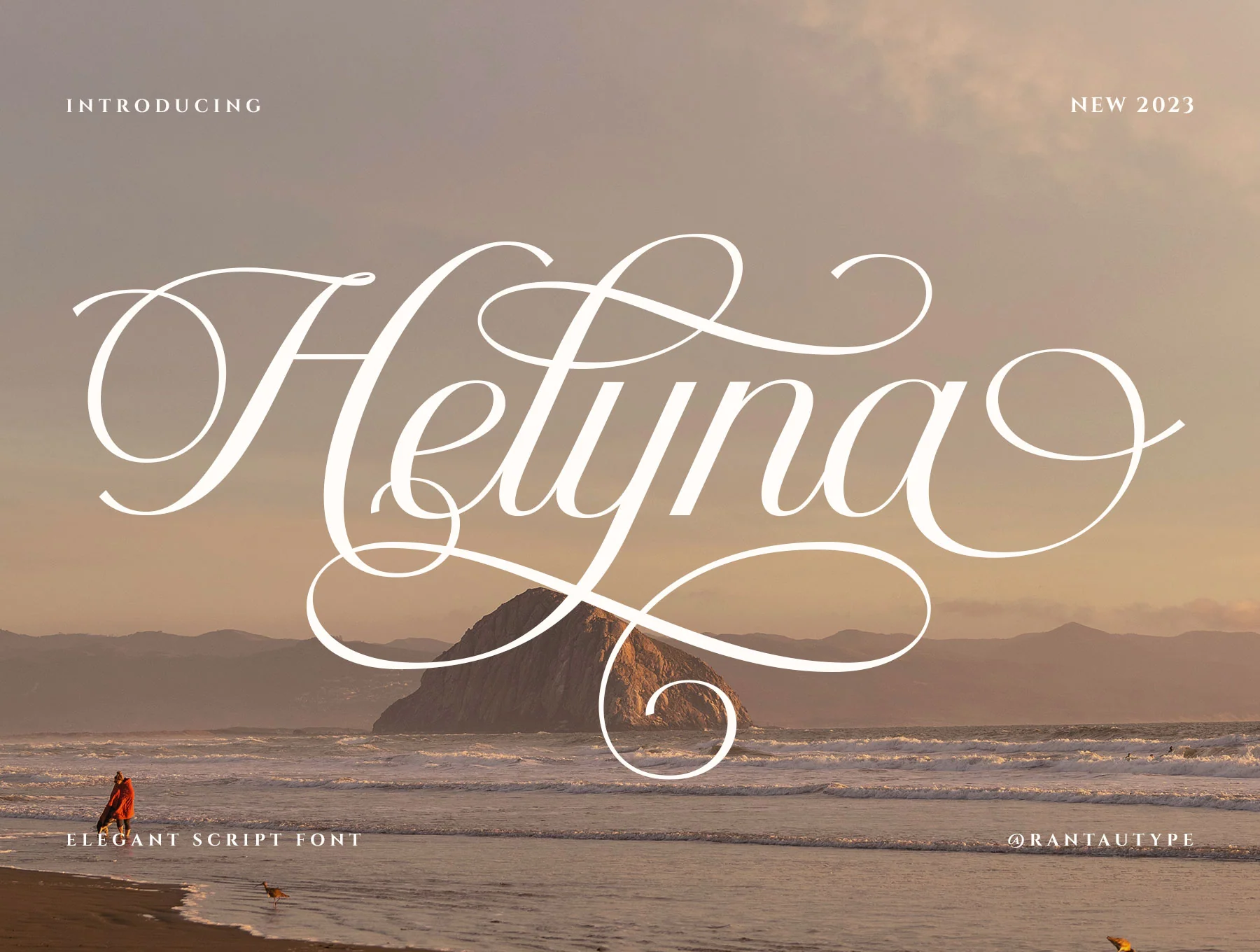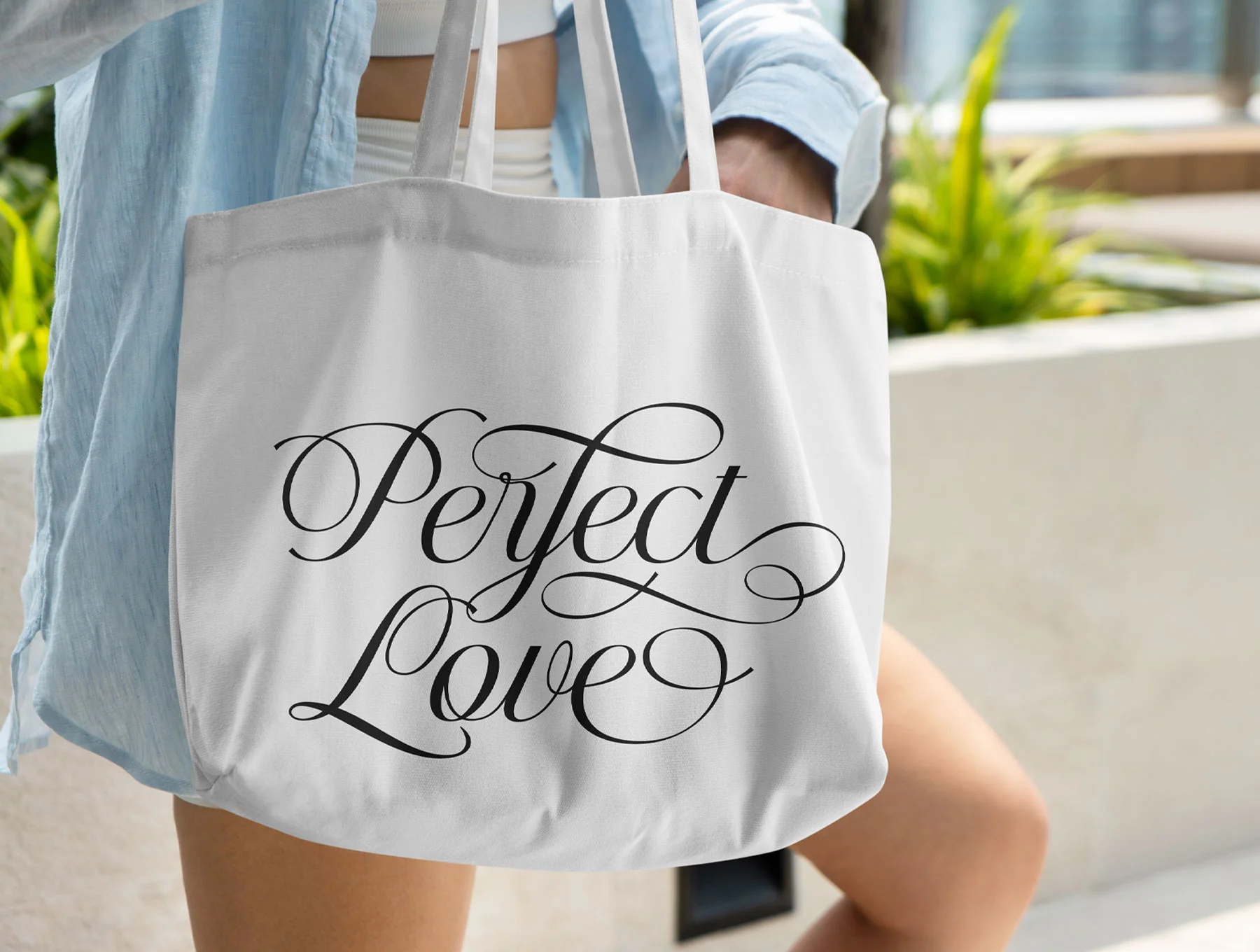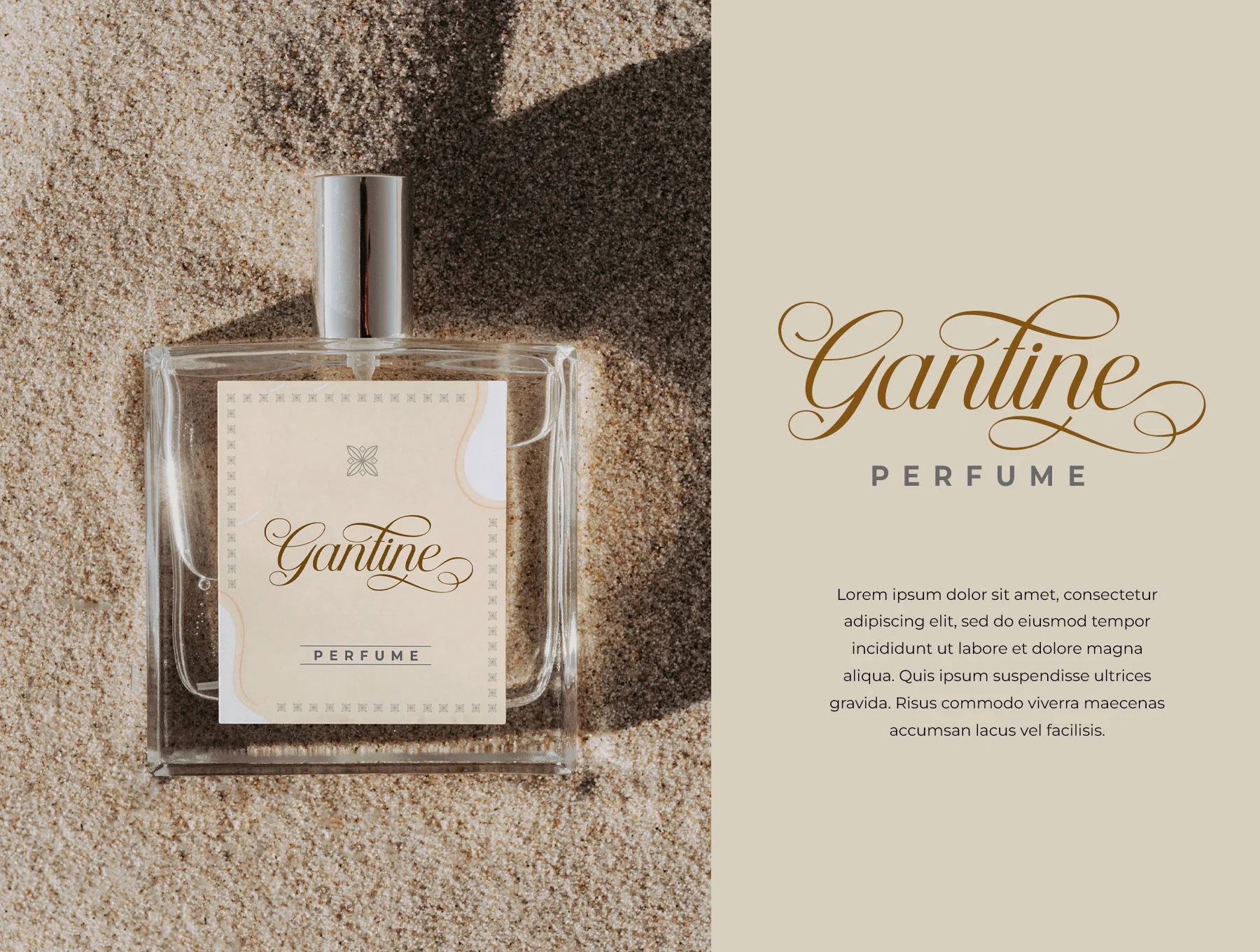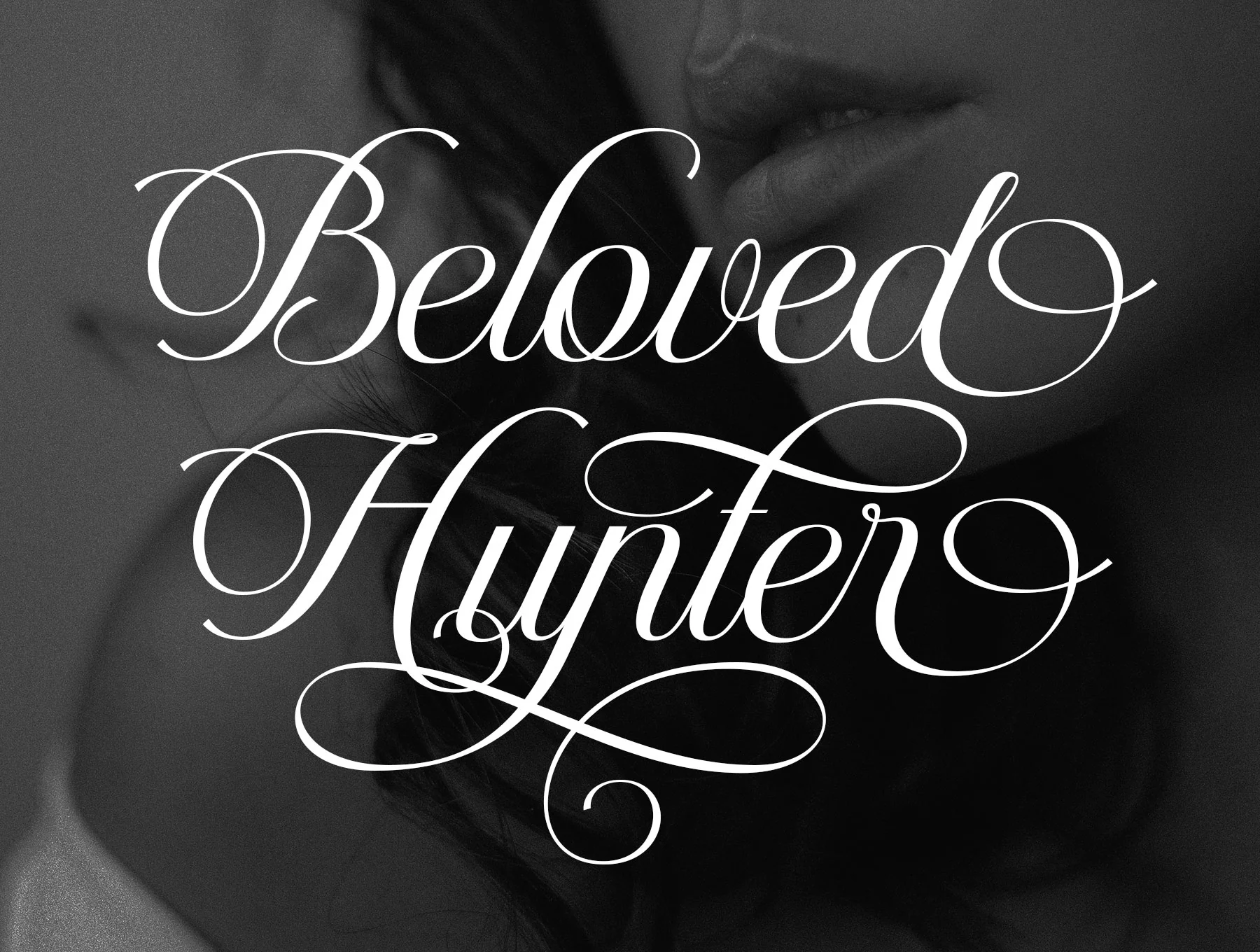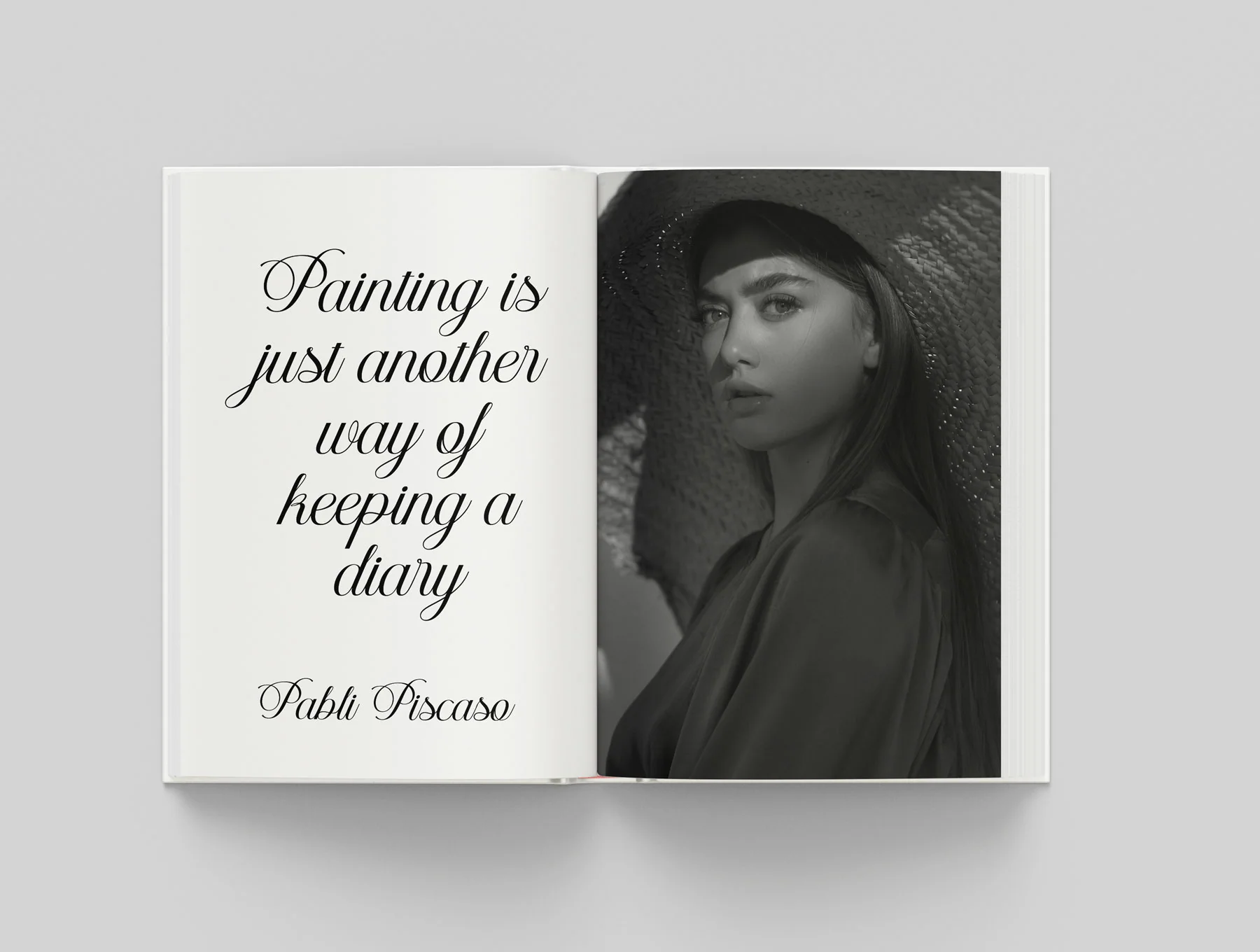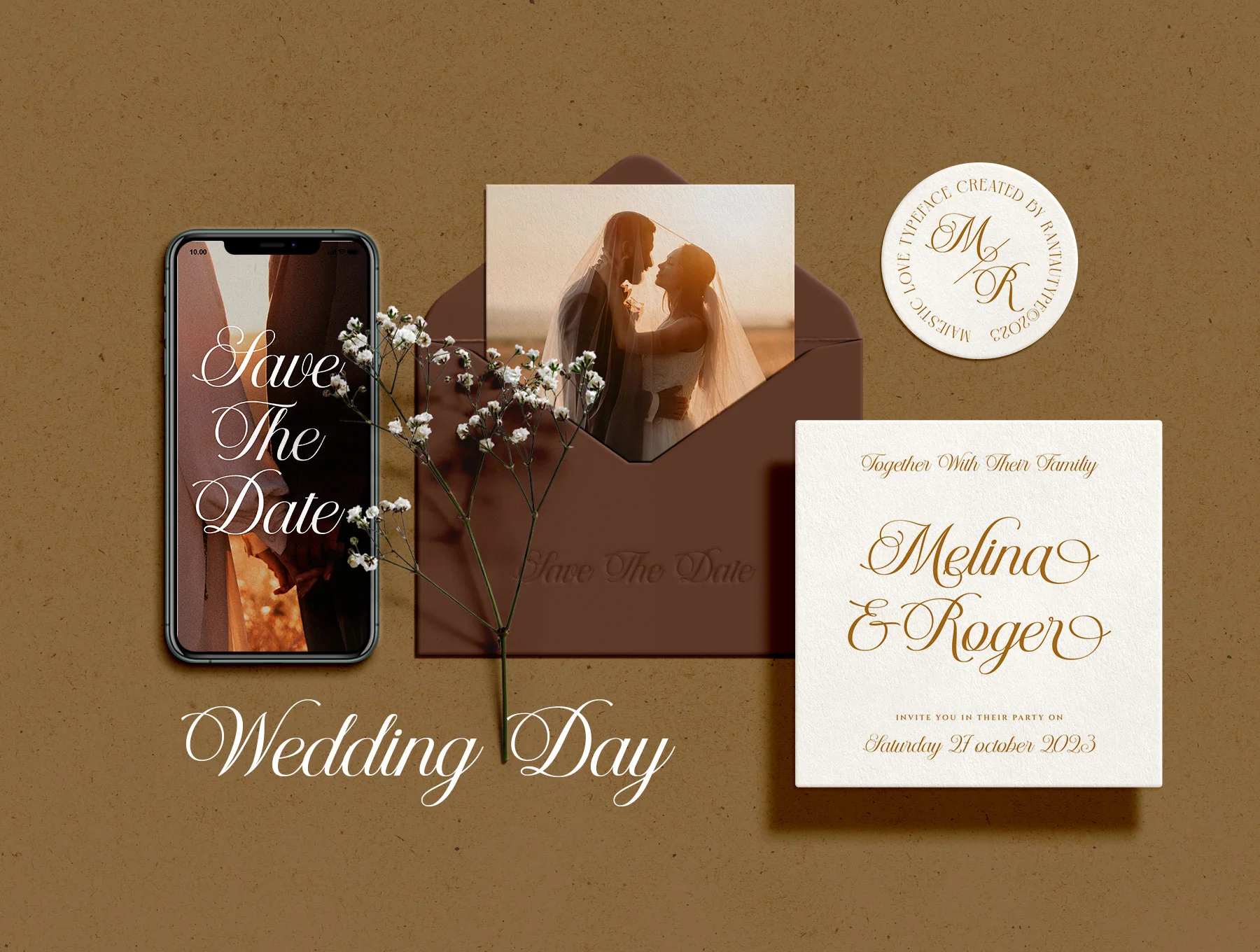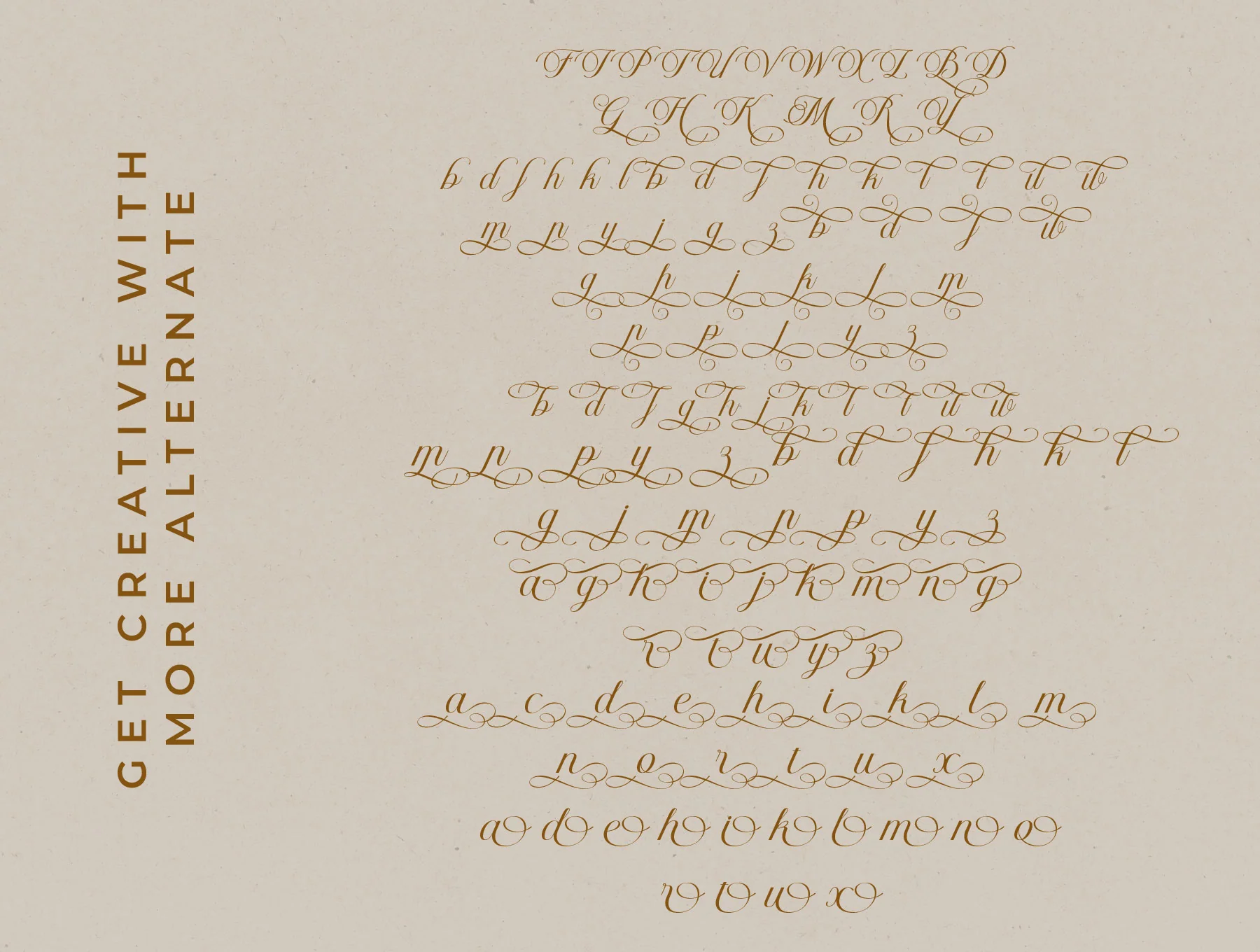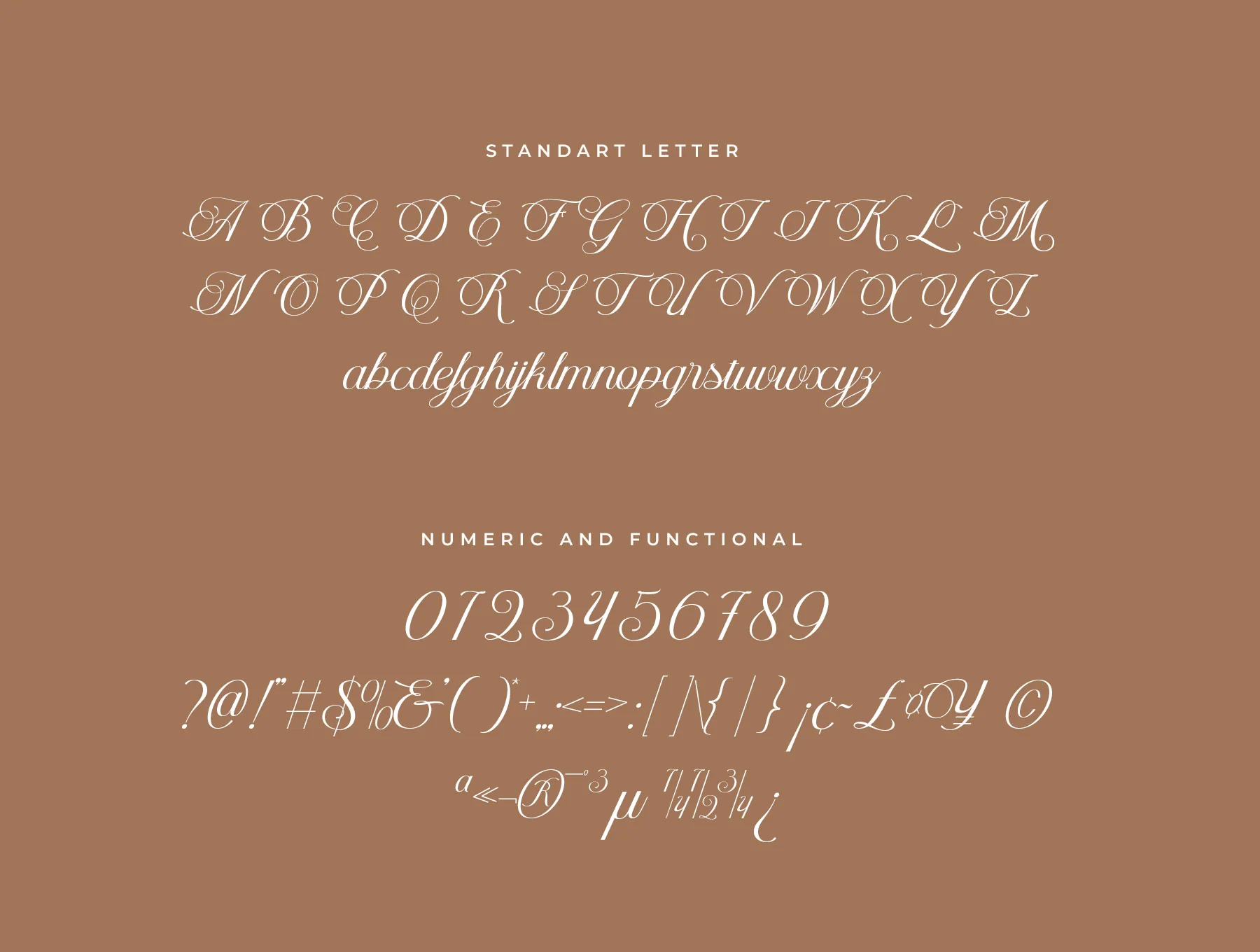
Helyna Elegant Script Font
Refined cursive typeface
Ligatures plus alternate styles
Helyna is an elegant script font with soft, stylish curves and a feminine modern feel. Clear and easy to use, it suits logos, titles, photography watermarks, branding, magazines, weddings, quotes, album covers, business cards, and more. Includes ligatures, alternates, multilingual support, OpenType features, plus OTF, TTF, WOFF, and WOFF2 files.